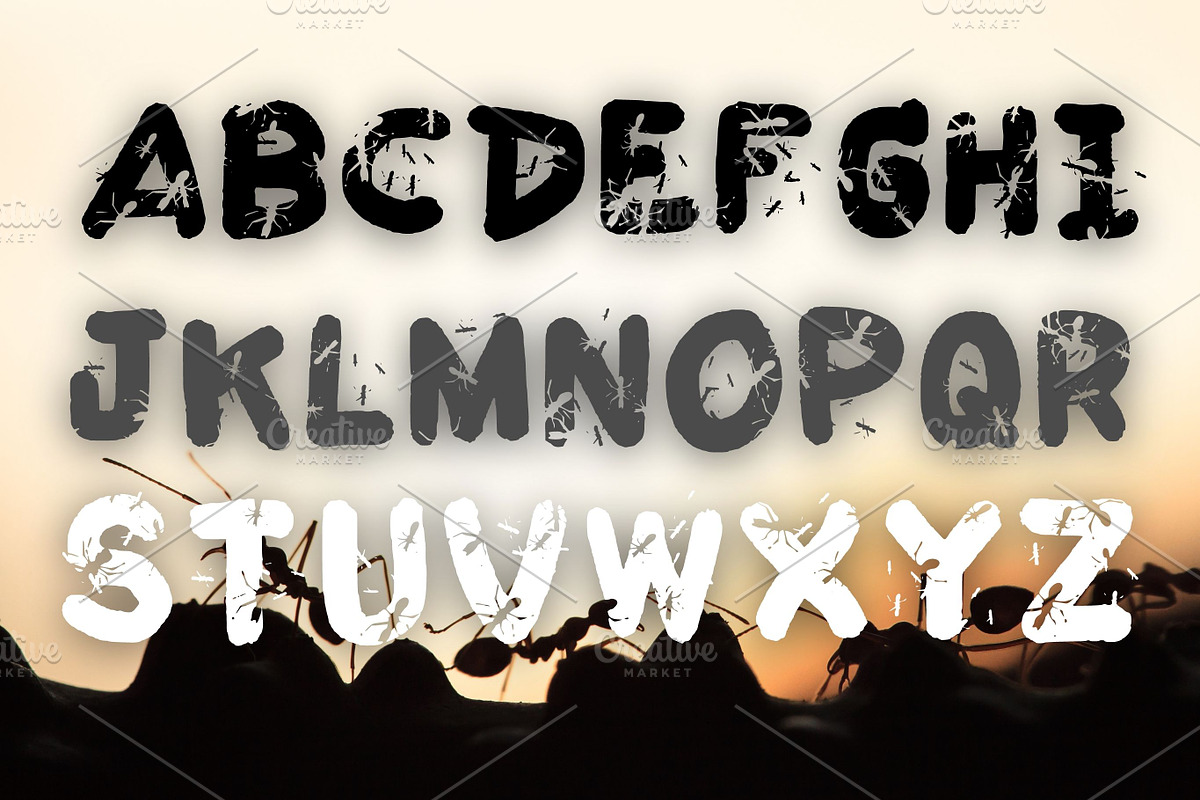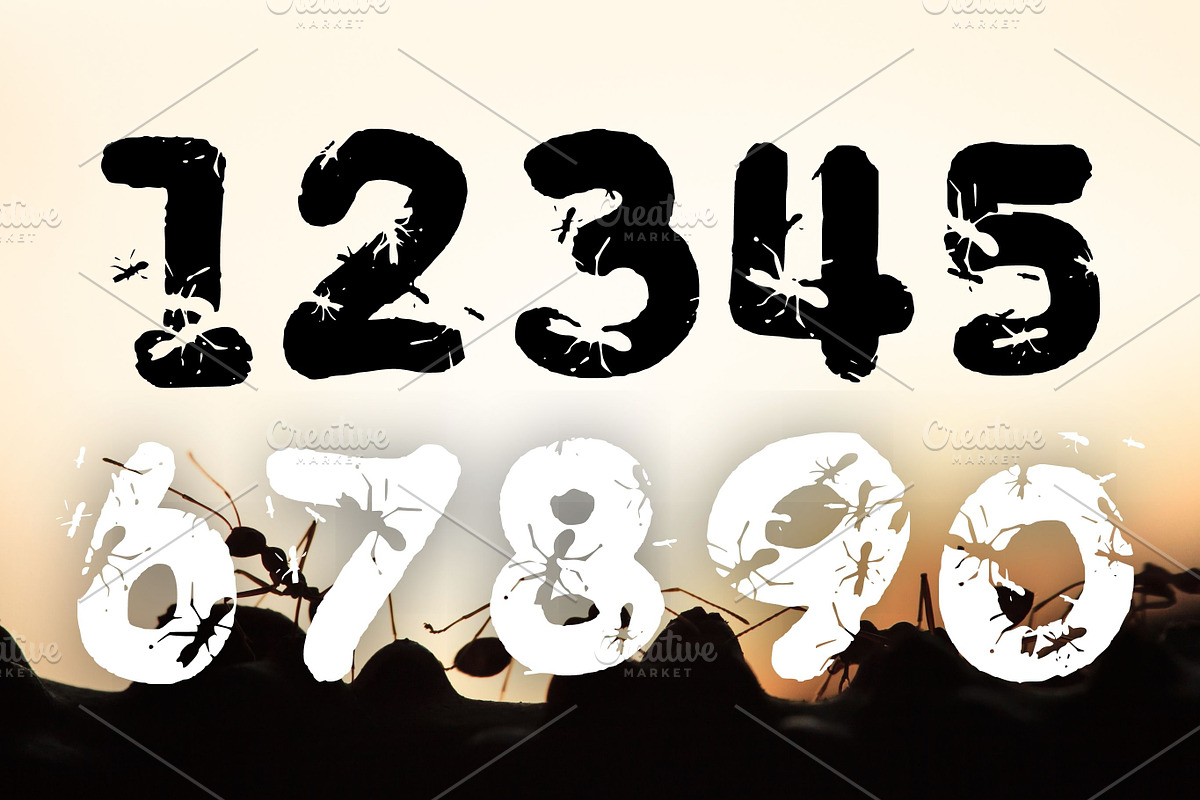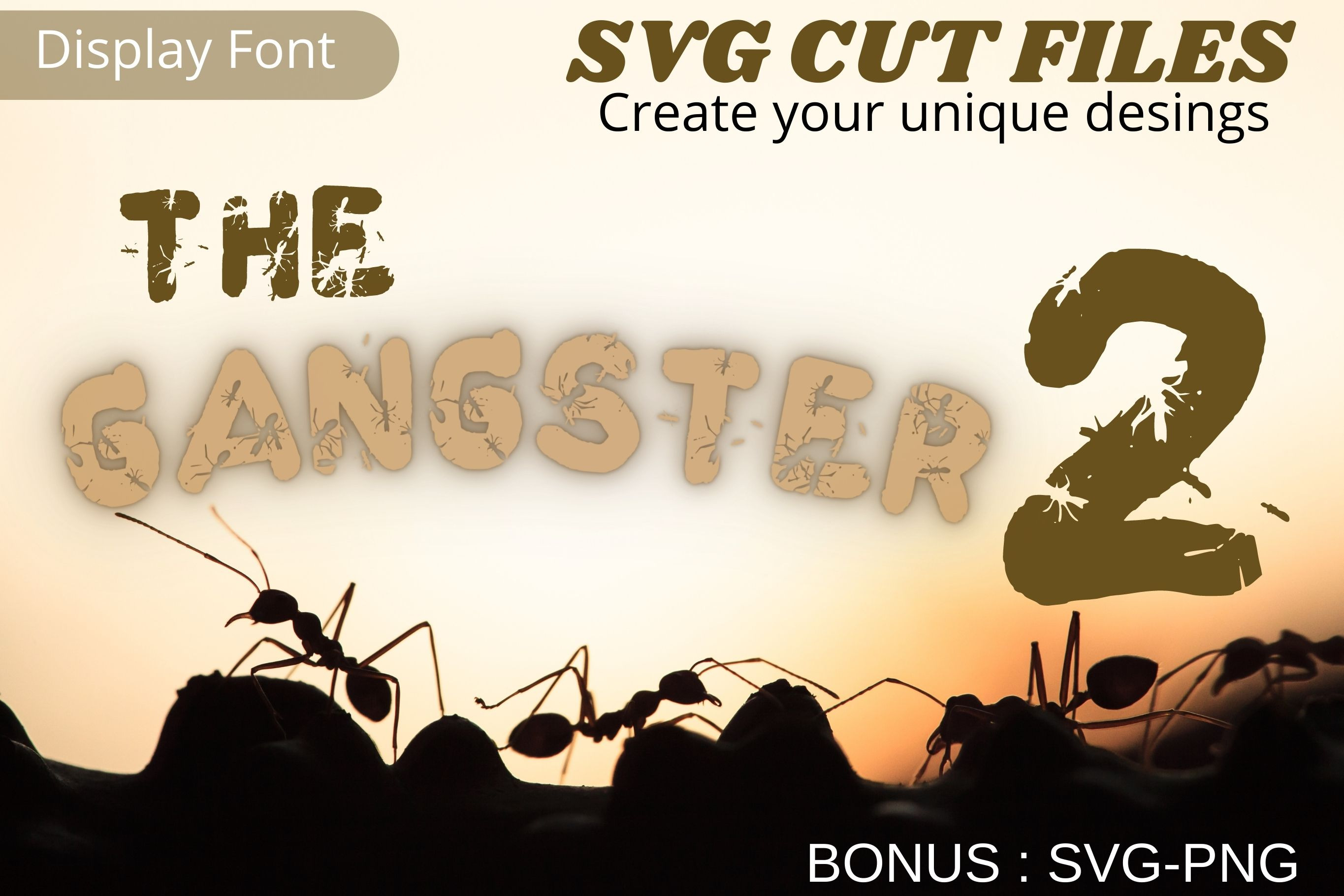
The Gangster2, Ant Font, Insect Font
Font is a cool, useful and unique decorative font. You can use it for various projects, such as blog posts, logos, branding, ads, invitations, greeting cards, planners, photo albums, decorations, and much more. Add it to any of your designs, and enjoy the results!